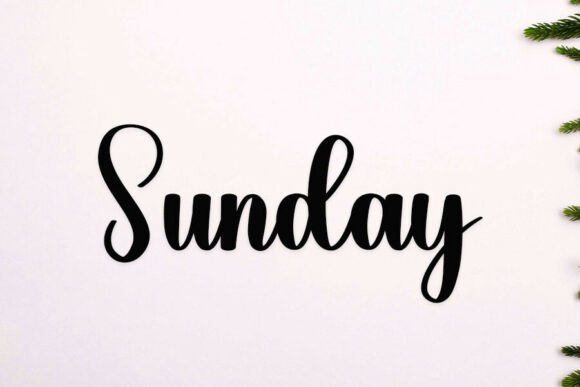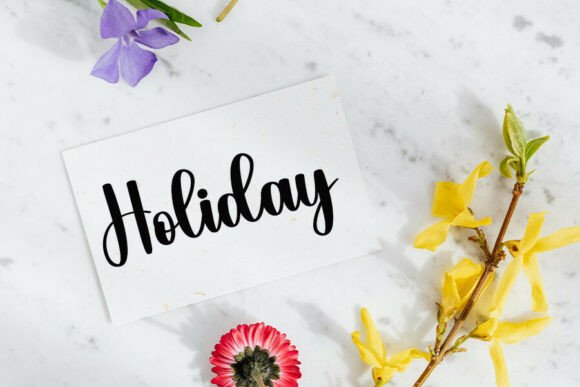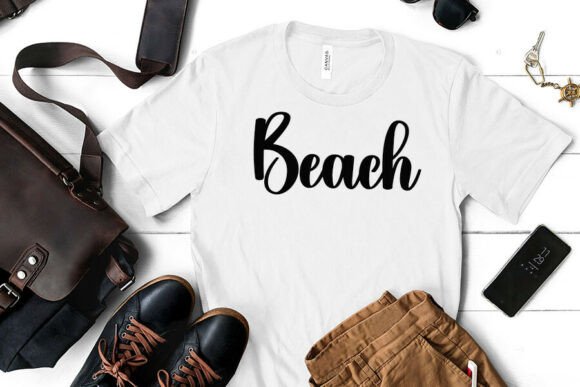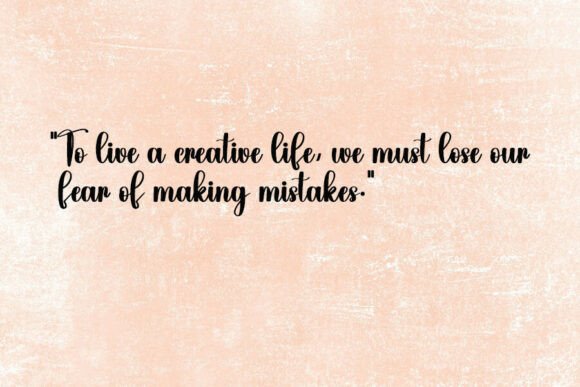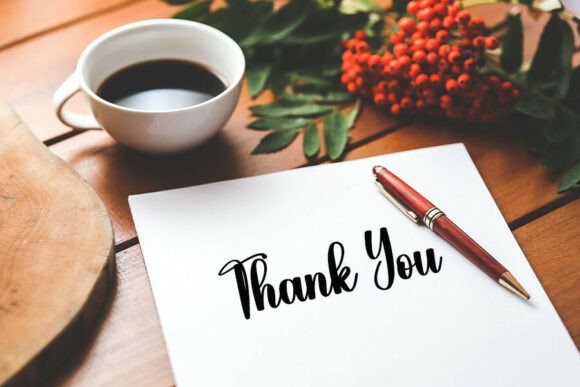
Introducing the Elegant Advent Christmas Font: Elevate Your Holiday Designs
The holiday season is upon us, and with it comes the need for designers and crafters to create stunning and sophisticated visuals that capture the essence of Christmas. If you’re looking for a font that exudes luxury, elegance, and festive charm, look no further than the Advent Christmas font. This modern calligraphy face is the perfect choice for high-end holiday events, sophisticated branding, and luxury packaging.
What Makes Advent Christmas Font So Special?
Advent Christmas font is a stunning modern calligraphy face that balances high-contrast strokes with a graceful, sweeping motion. The sharp entries and fluid exits of this elegant typeface create a visual rhythm that feels both traditional and contemporary. This unique blend of classic and modern elements makes it an ideal choice for designers who want to create eye-catching and memorable holiday designs.
Perfect for Large-Scale Headers and Formal Invitations
Advent Christmas font is particularly effective for large-scale headers on seasonal websites or as the centerpiece of a formal invitation. Its elegant and sophisticated design makes it perfect for creating a lasting impression during the holiday season. Whether you’re designing a luxury boutique’s holiday lookbook, a wine label, or a festive greeting card, this font provides the “wow” factor needed to make your design stand out.
Pairing Suggestions for Maximum Impact
To maximize the impact of the Advent Christmas font, pair it with a minimalist serif font. This will allow the calligraphic flourishes to take center stage and create a beautiful visual contrast. The combination of the elegant Advent Christmas font and a simple serif font will add a touch of sophistication and luxury to your holiday designs.
Use Cases for Advent Christmas Font
The Advent Christmas font is versatile and can be used in a variety of design projects, including:
- Luxury holiday packaging: Add a touch of elegance to your holiday packaging with the Advent Christmas font.
- Seasonal websites: Create a stunning header for your seasonal website that will leave a lasting impression on your visitors.
- Formal invitations: Use the Advent Christmas font to create beautiful and sophisticated formal invitations for holiday events.
- Wine labels: Add a touch of luxury to your wine labels with the Advent Christmas font.
- Holiday lookbooks: Create a stunning holiday lookbook for your luxury boutique with the Advent Christmas font.
Why Designers and Crafters Love Advent Christmas Font
Designers and crafters love the Advent Christmas font for its unique blend of classic and modern elements. The font’s elegant design and sophisticated feel make it perfect for creating high-end holiday designs that stand out from the crowd. With the Advent Christmas font, you can:
- Create stunning holiday designs that capture the essence of Christmas.
- Add a touch of luxury and sophistication to your designs.
- Make a lasting impression on your audience with a unique and memorable font.
In conclusion, the Advent Christmas font is a stunning modern calligraphy face that is perfect for designers and crafters who want to create sophisticated and elegant holiday designs. With its unique blend of classic and modern elements, this font is sure to make a lasting impression on your audience. Whether you’re designing a luxury holiday package, a seasonal website, or a formal invitation, the Advent Christmas font is the perfect choice.
Get Ready to Elevate Your Holiday Designs
Don’t settle for ordinary holiday designs. Elevate your designs with the Advent Christmas font and make a lasting impression on your audience. With its elegant design and sophisticated feel, this font is sure to become a staple in your design collection.